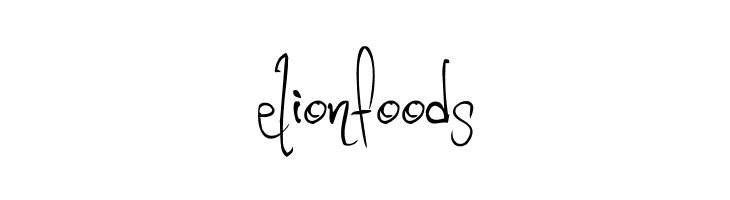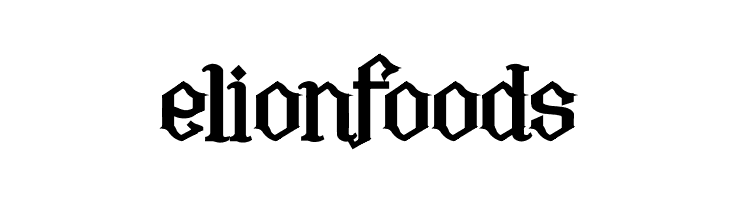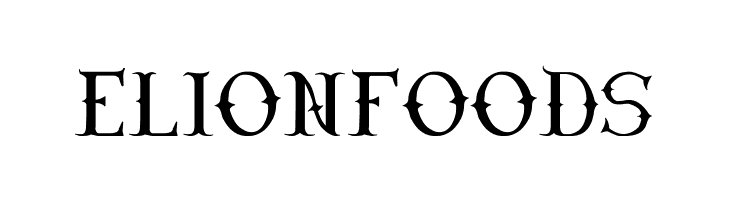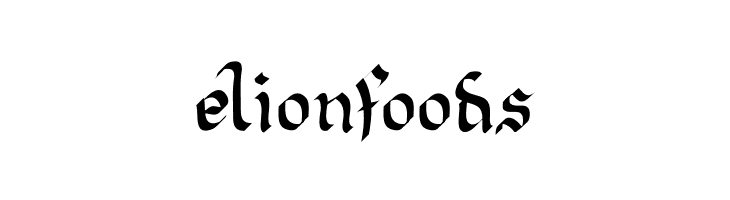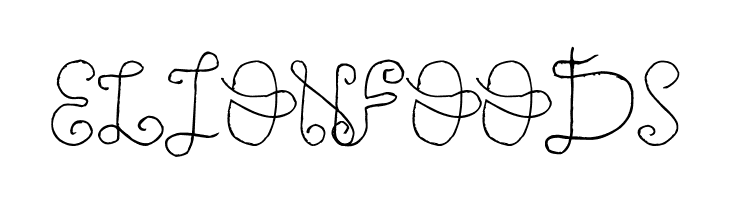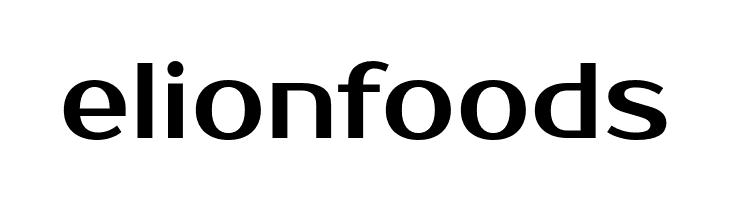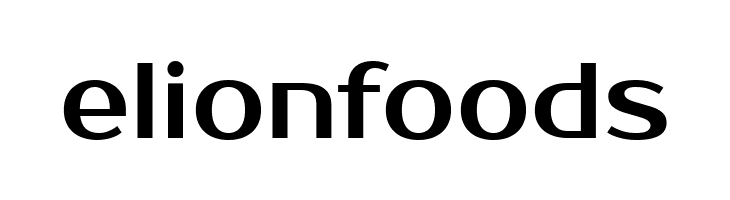
A whimsical, artistic font with flowing, cursive-like strokes and playful loops.
A bold blackletter font with intricate, angular letterforms and a historic feel.
A classic serif font with elegant, elongated strokes and a sophisticated appearance.
A bold, high-contrast serif font with dramatic strokes and classic elegance.
An ornate and dramatic font with sharp serifs and intricate detailing.
A bold, ancient-inspired font with sharp, angular characters.
A bold, Gothic-style font with sharp, angular lines and intricate detailing.
A whimsical, continuous-line font with intricate loops and curls.
A modern, geometric typeface with a clean and professional look.